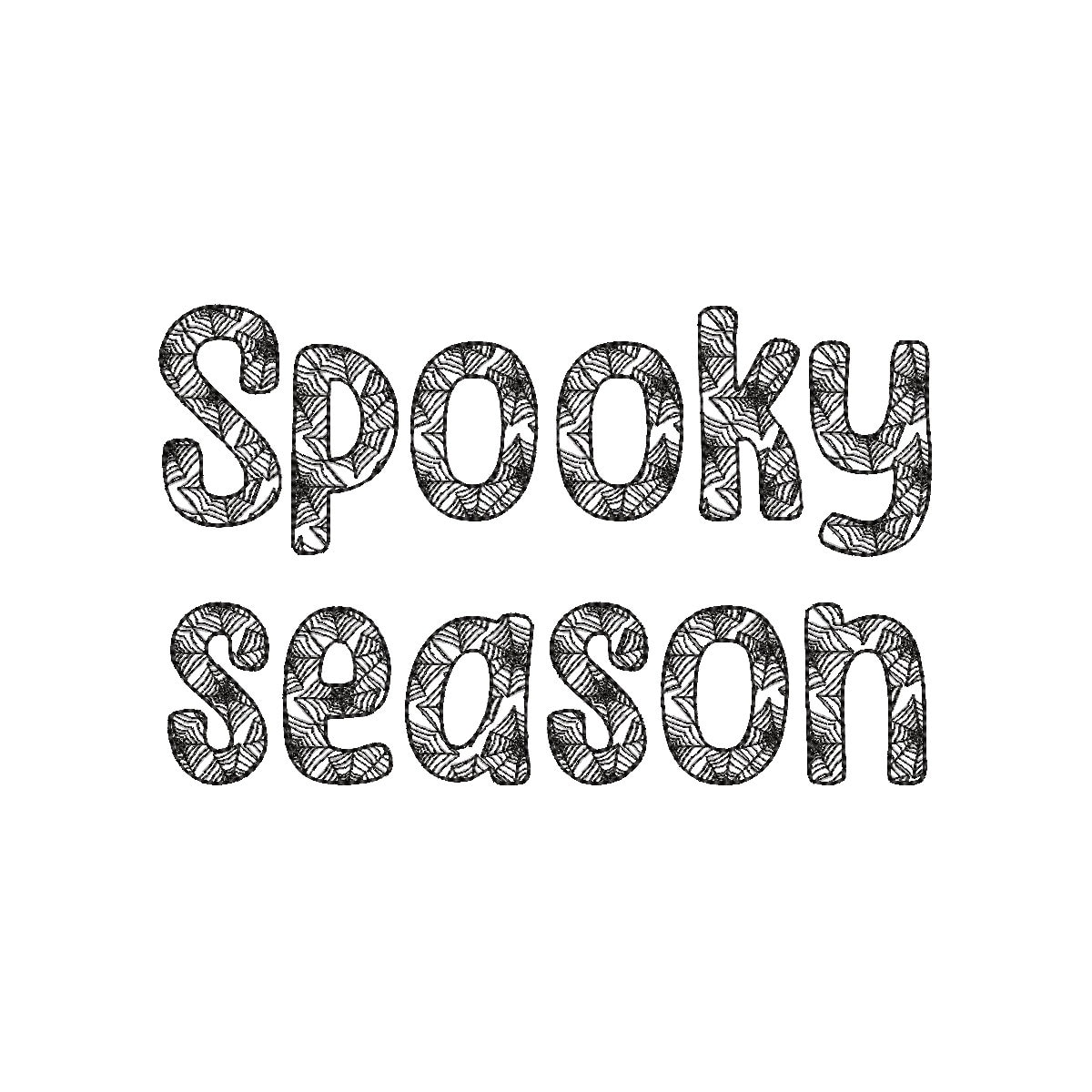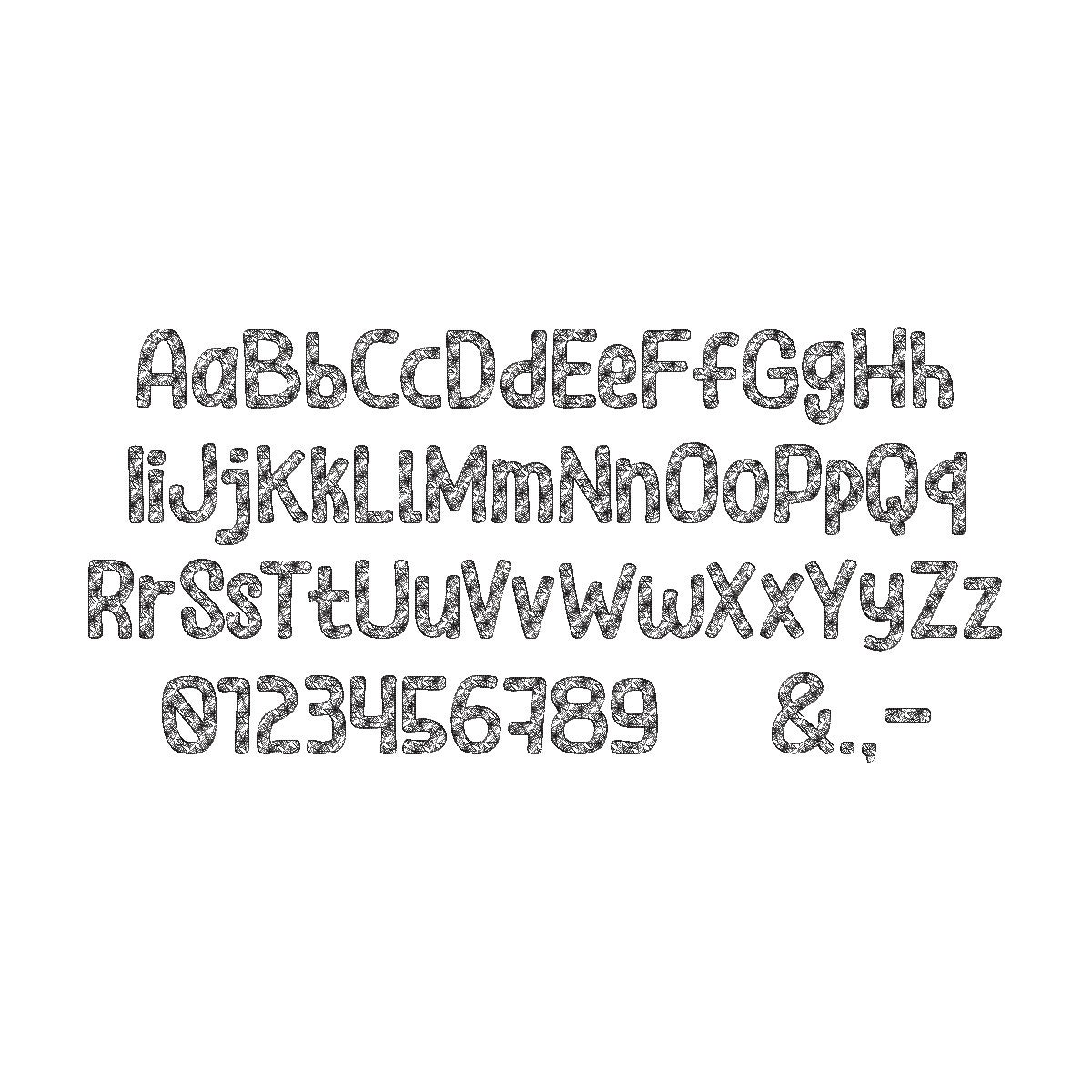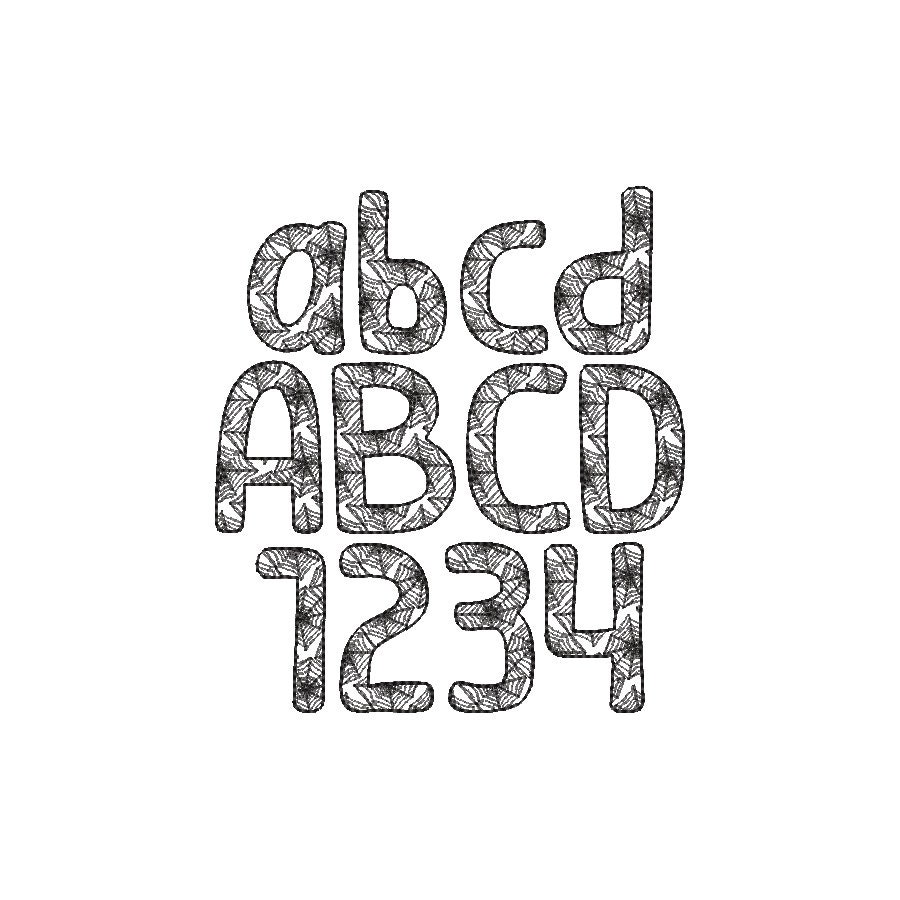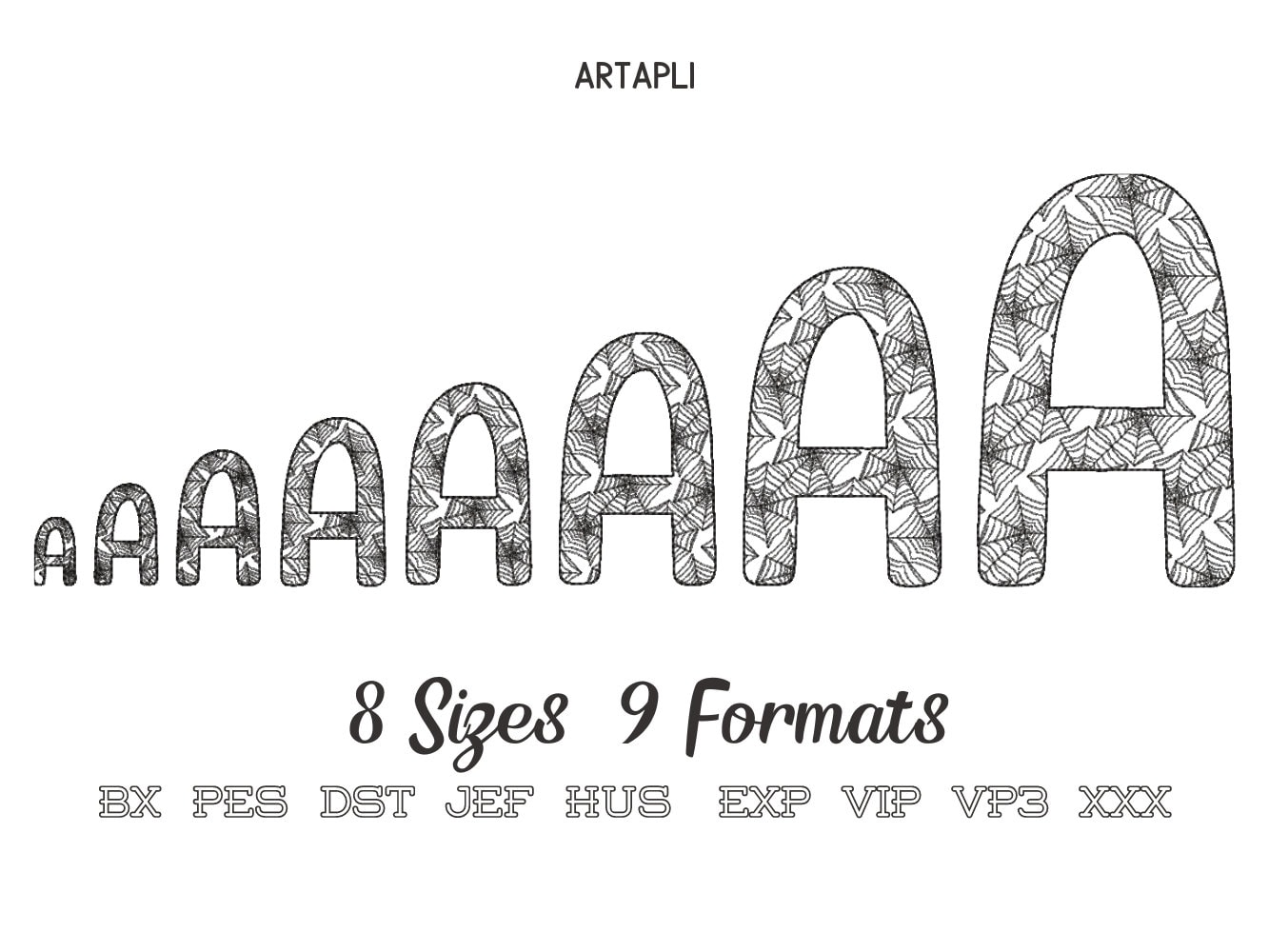
Spooky Season Halloween Font light sketch outline spiderweb alphabet letters monogram machine embroidery designs in multiple sizes BX included
These are quick-stitch designs that resemble lace, allowing the background fabric to show through for a stunning effect.